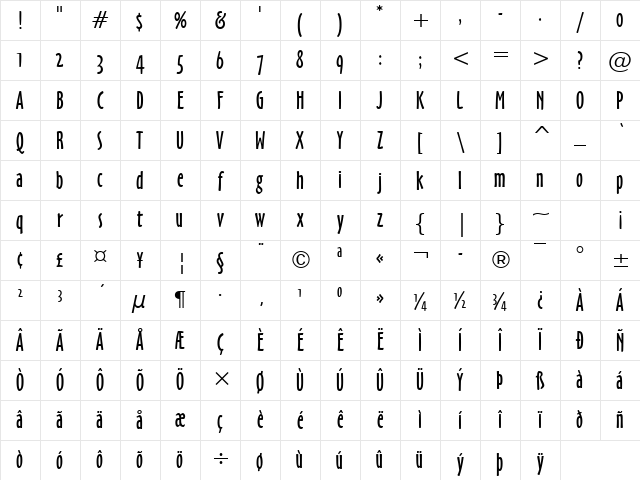
Complete OzHandicraft Win95BT Roman glyph index. Displaying only characters natively supported by OzHandicraft Win95BT Roman font.
OzHandicraft Win95BT flows with the natural rhythm of handwritten lettering, making it ideal for designs that call for warmth and personal expression.